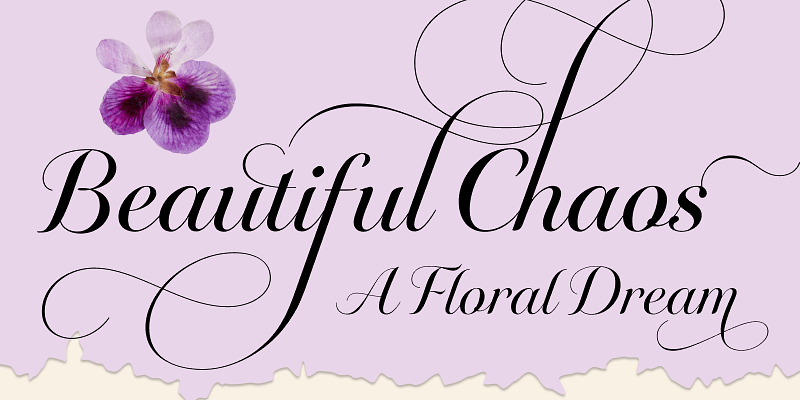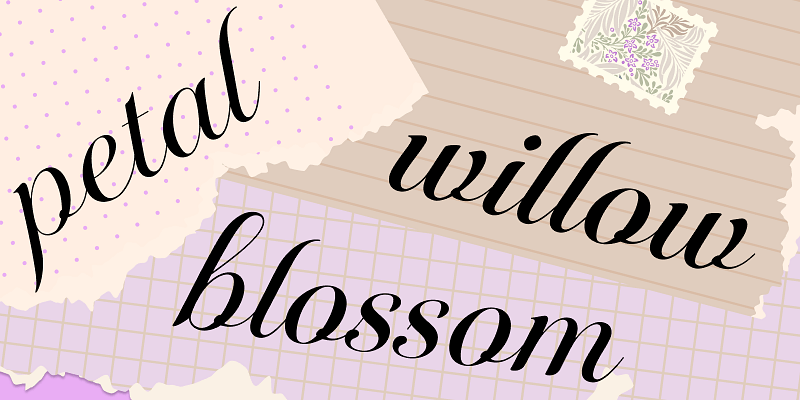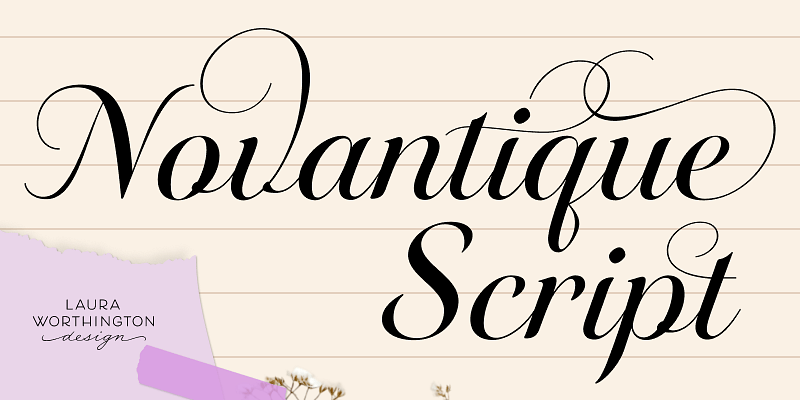
Novantique is a captivating collection of four distinct yet visually related families. The 22 styles together—Sans, Script, Serif Display, and Serif—represent elegance and modernity. All are ideal for creating an indelible solution for a richly layered editorial. Used individually or in combination, these typefaces were designed to grace your front covers, headlines, sections, ledes, text, and bylines. Try Novantique; the opportunities for experimentation are endlessly enticing.